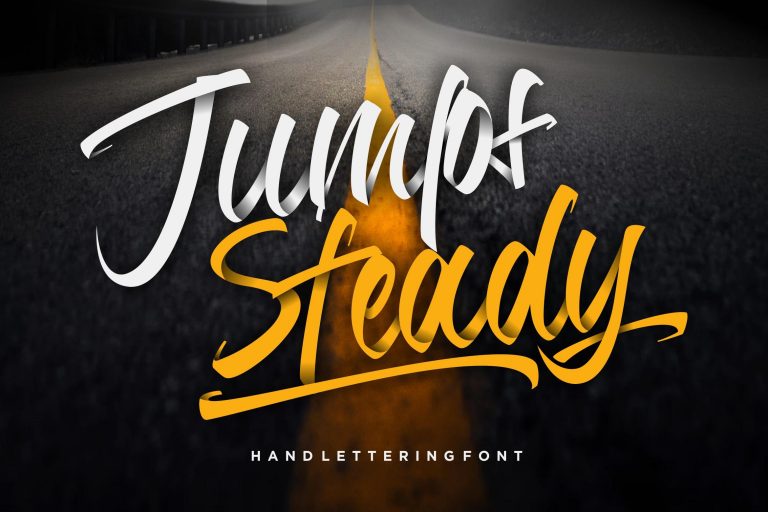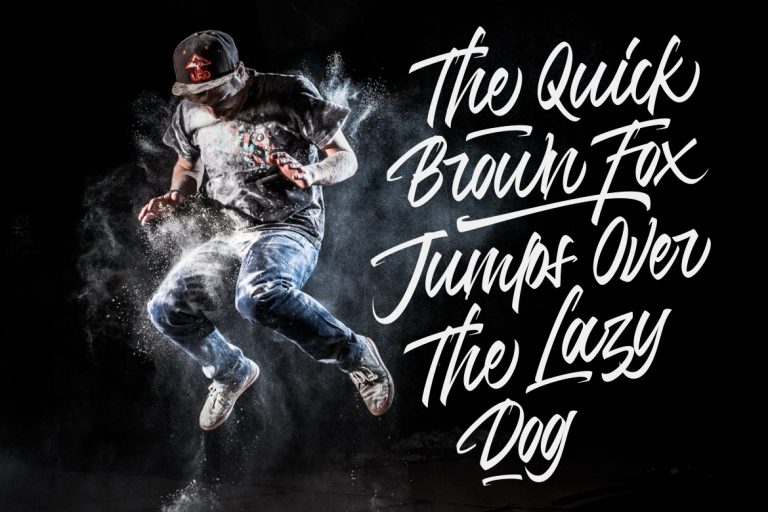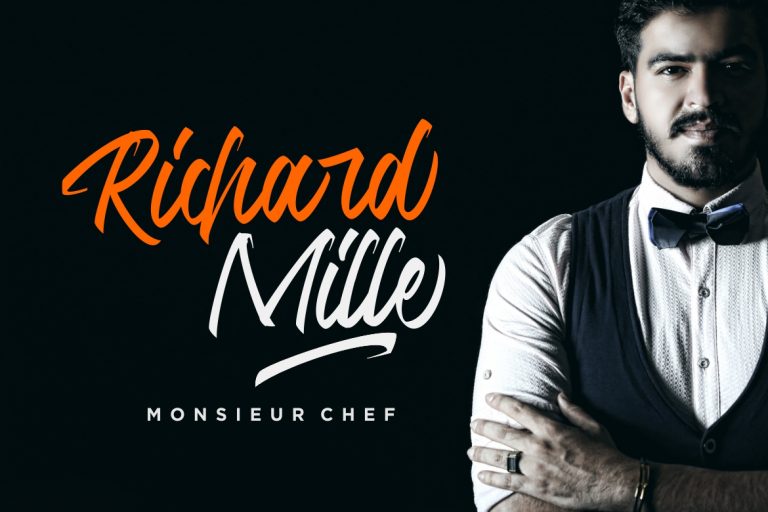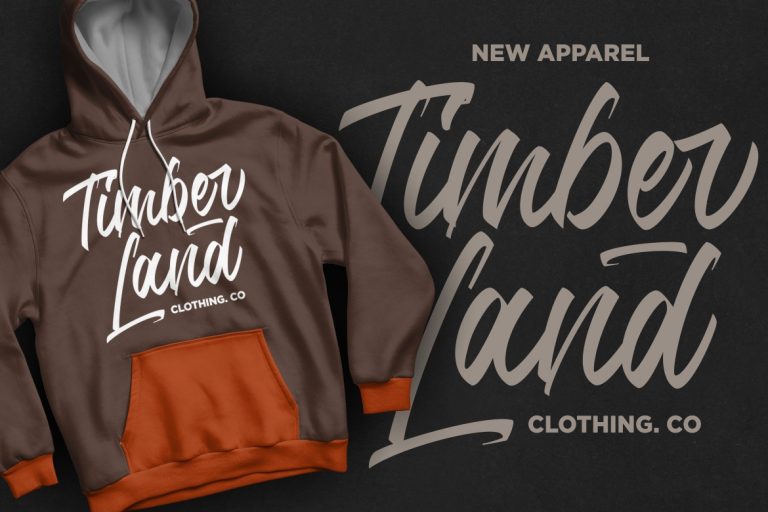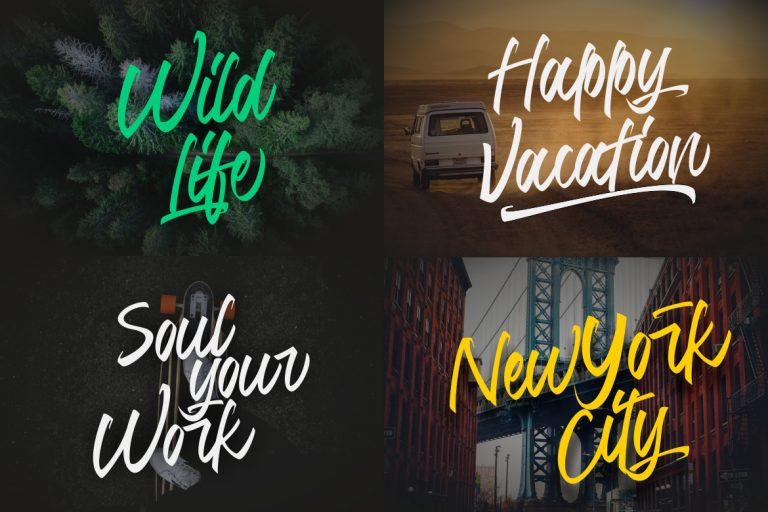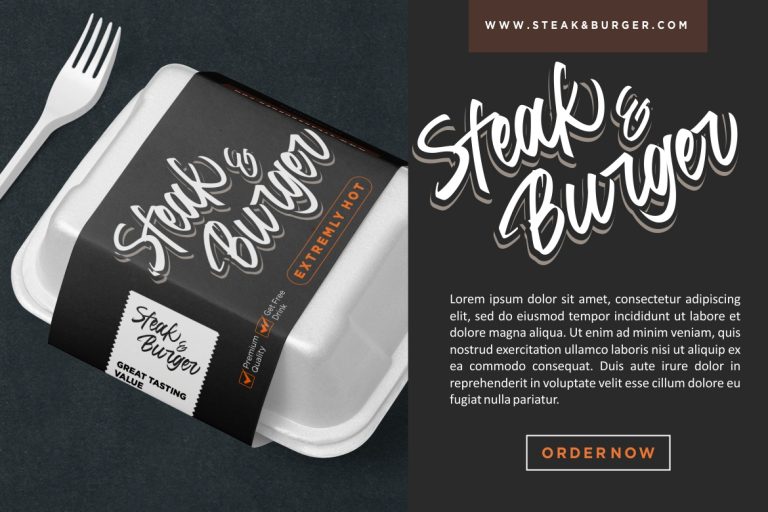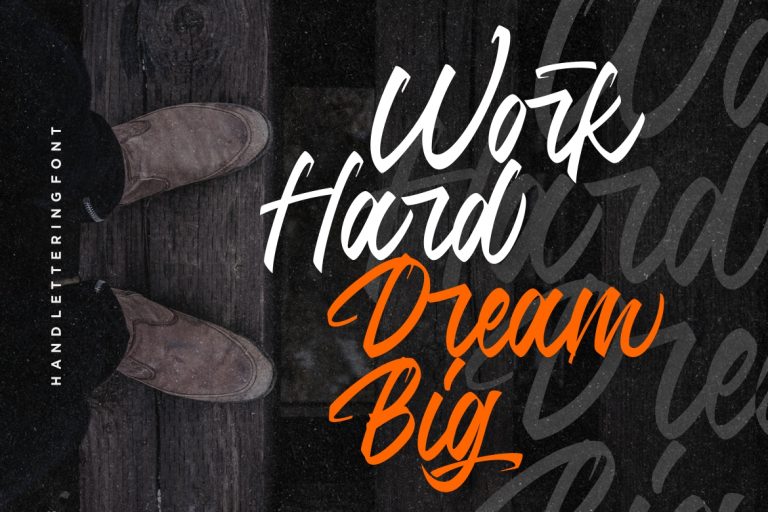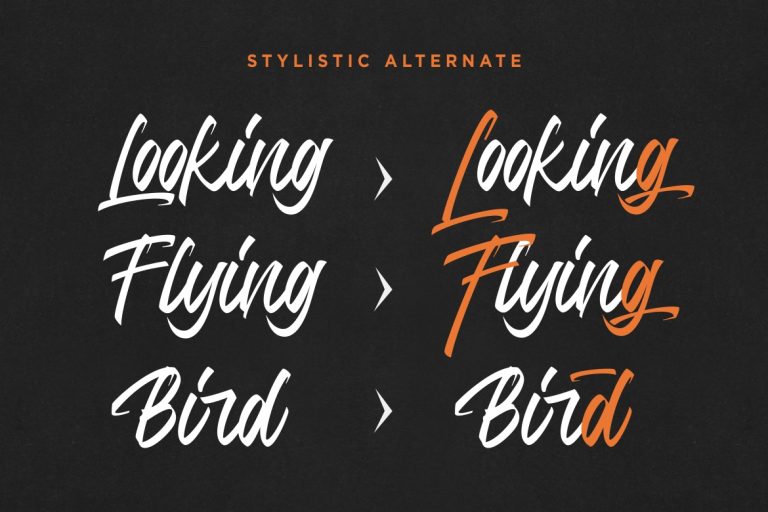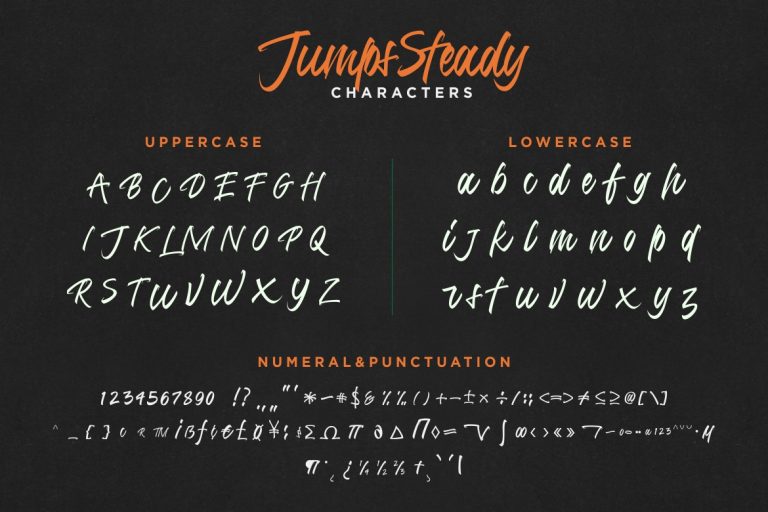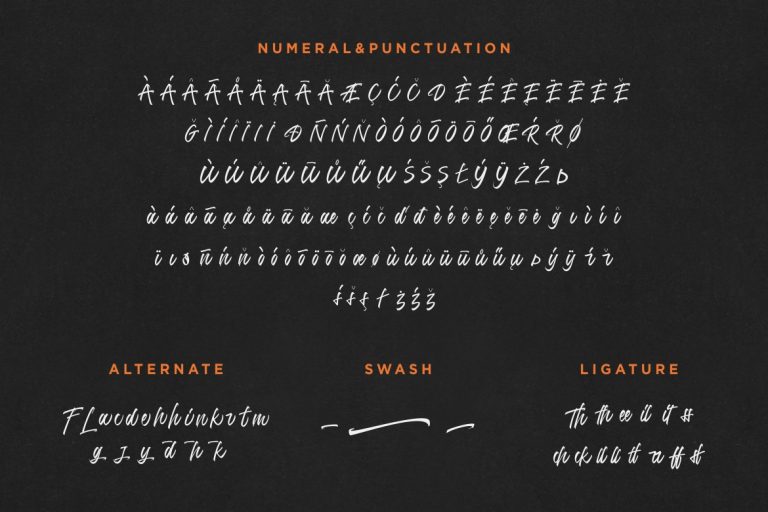
Jumps Steady Script
Jumps Steady is a modern handwritten script font with street style movement for your latest project that needs hand lettering taste.
Jumps Steady is perfect for branding projects, logo, wedding designs, social media posts, advertisements, product packaging, product designs, label, photography, watermark, invitation, stationery and any projects that need handwriting taste.
- More than 300 of glyphs
- Ligature & Stylistic alternate
- Fonts include multilingual support for; Afrikaans, Albanian, Catalan, Danish, Dutch, English, French, Hungarian, Icelandic, Italian, Spanish, Portuguese, German, Swedish, Norweigen, Polish, Indonesian, Turkish, Zulu